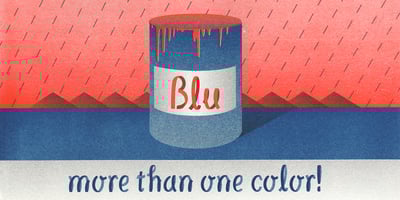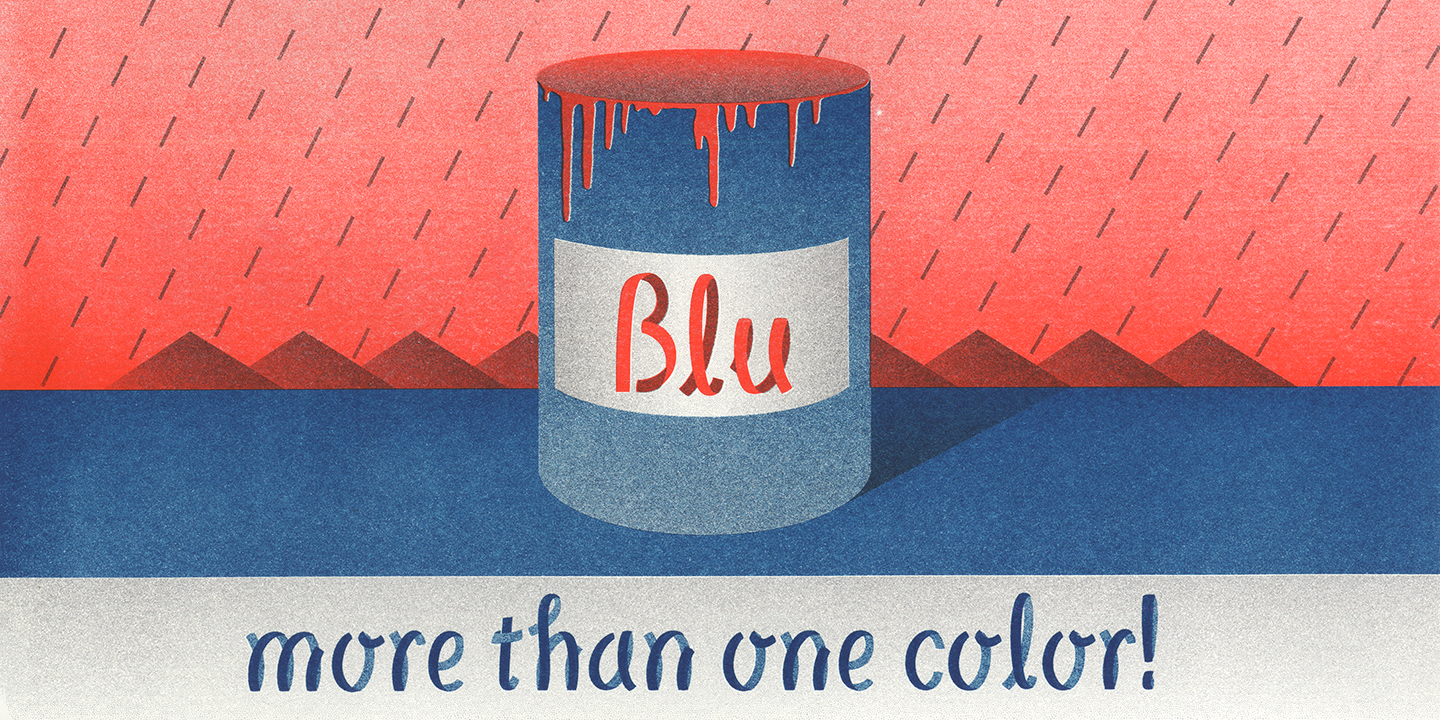
Blu
Blu Font Family was designed by Leo Koppelkamm and published by Leo Koppelkamm. Blu contains 3 styles and family package options. When flat space becomes curved, folded down and twisted, you get a ...